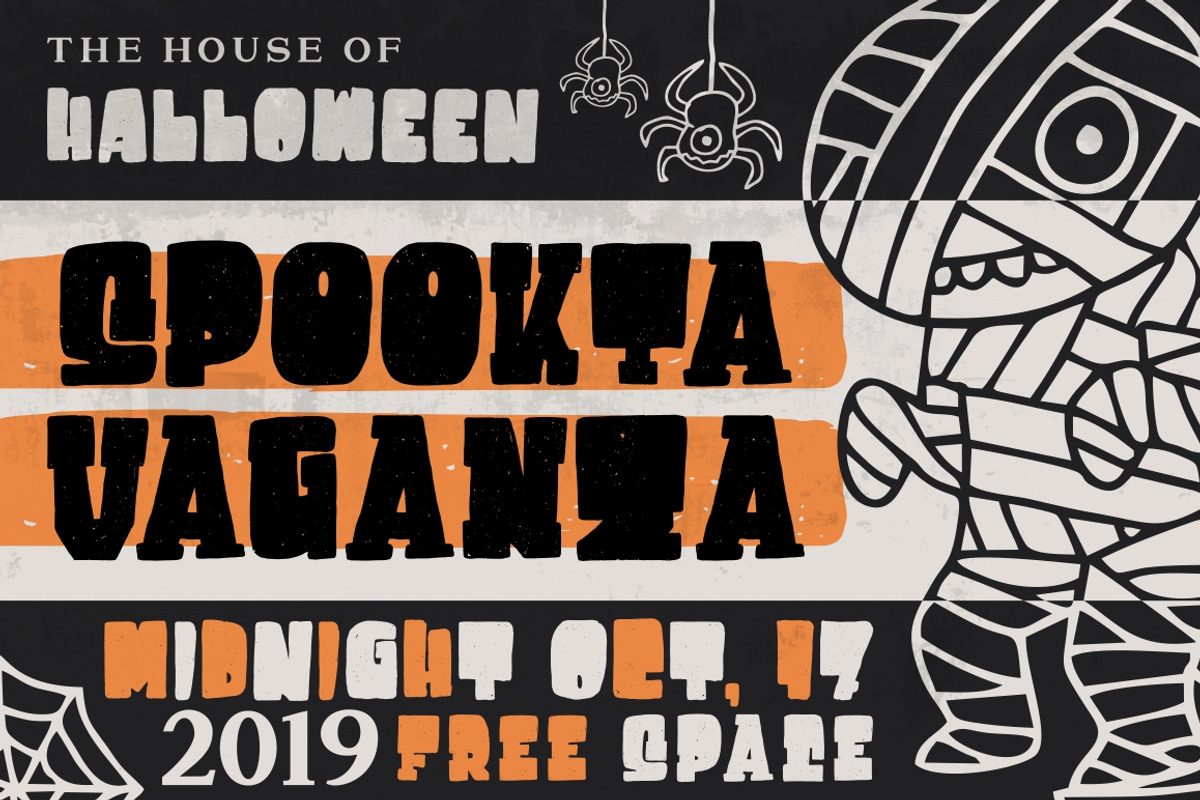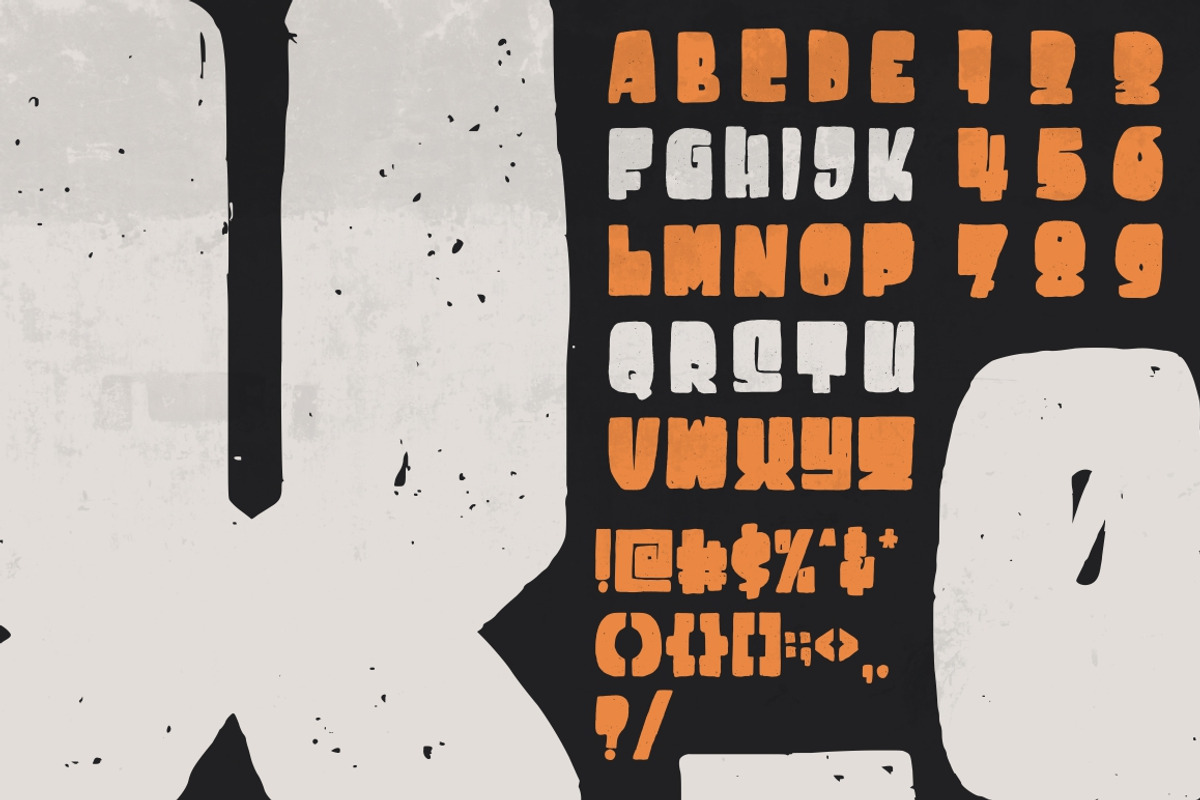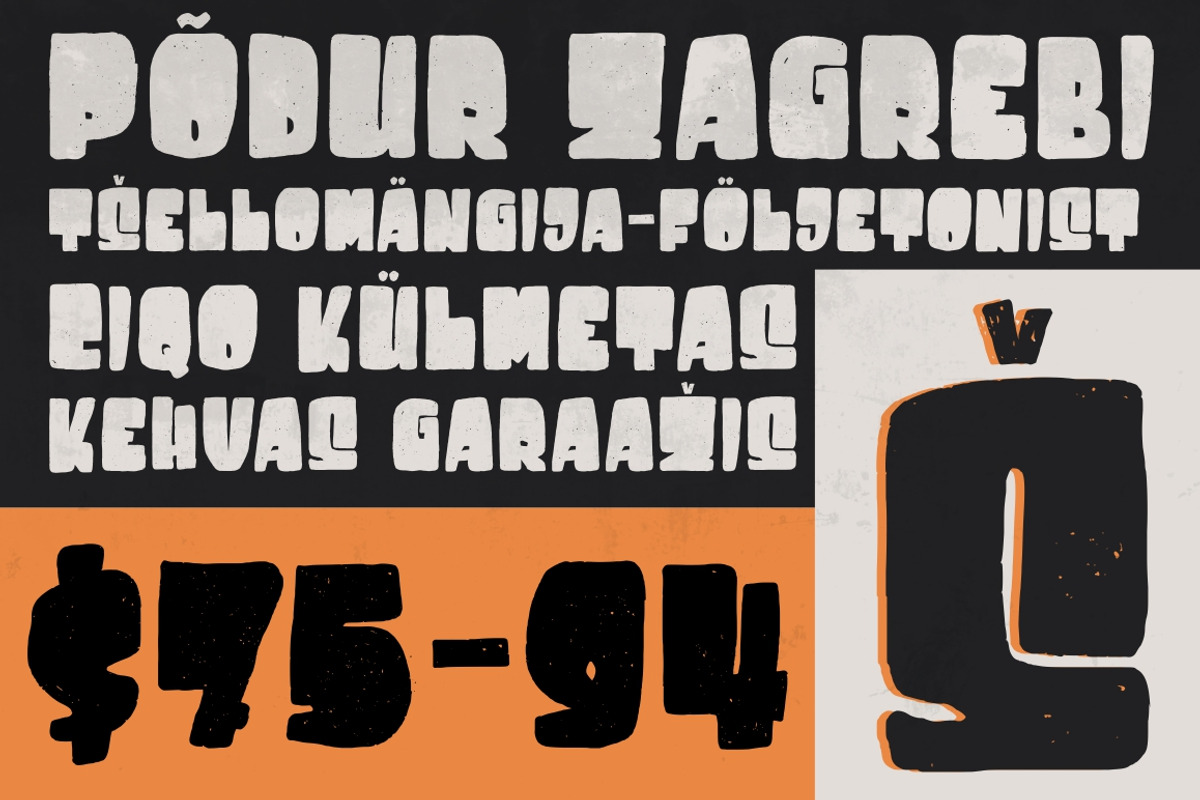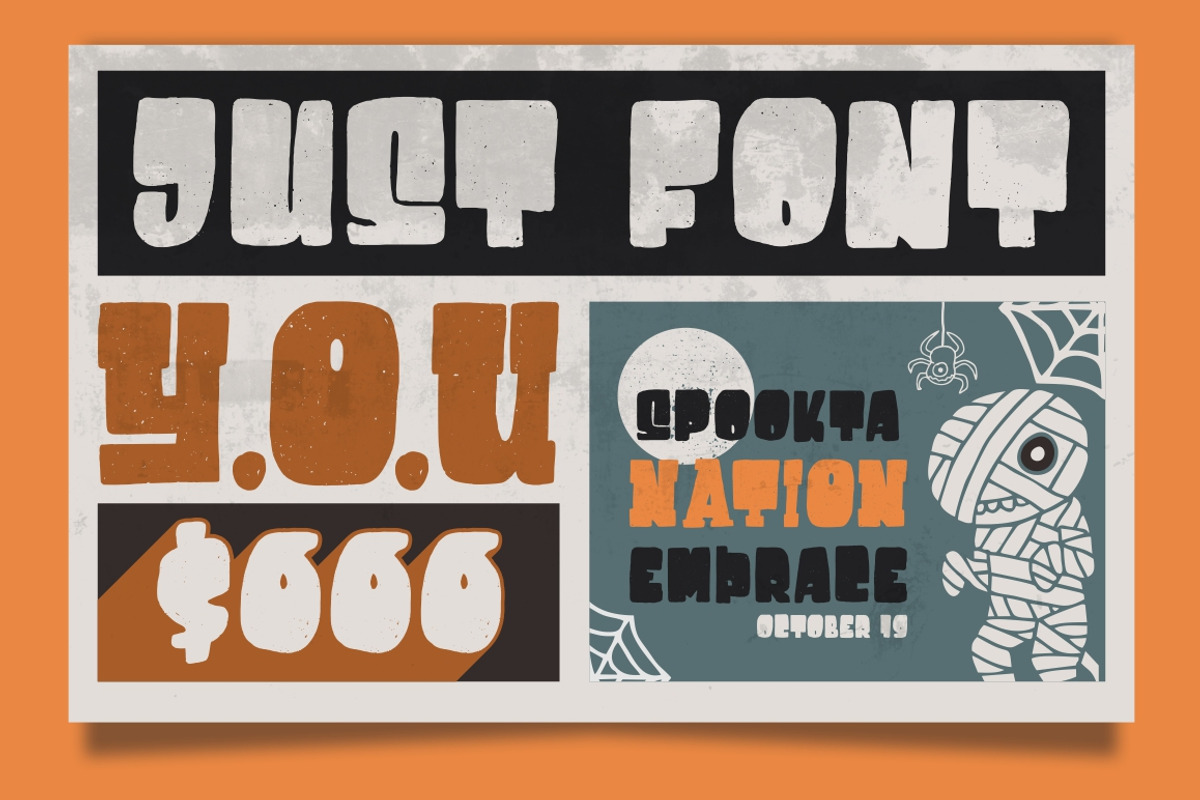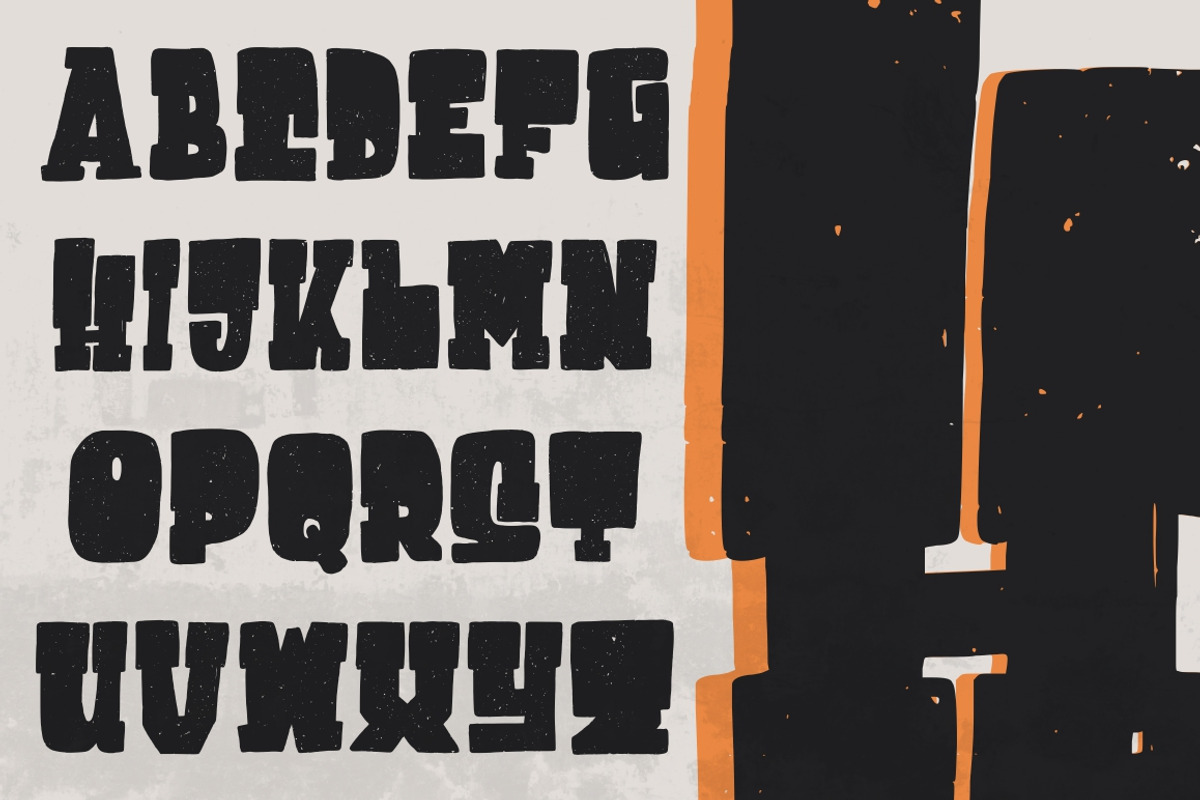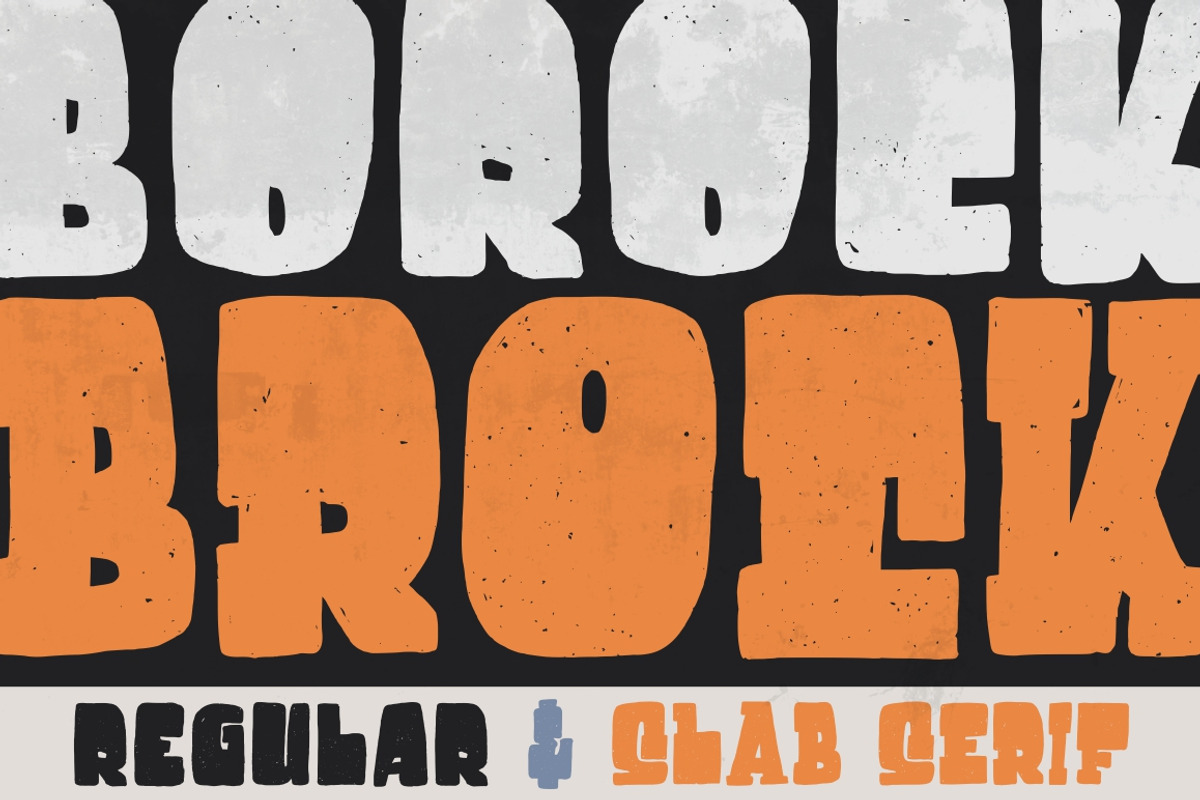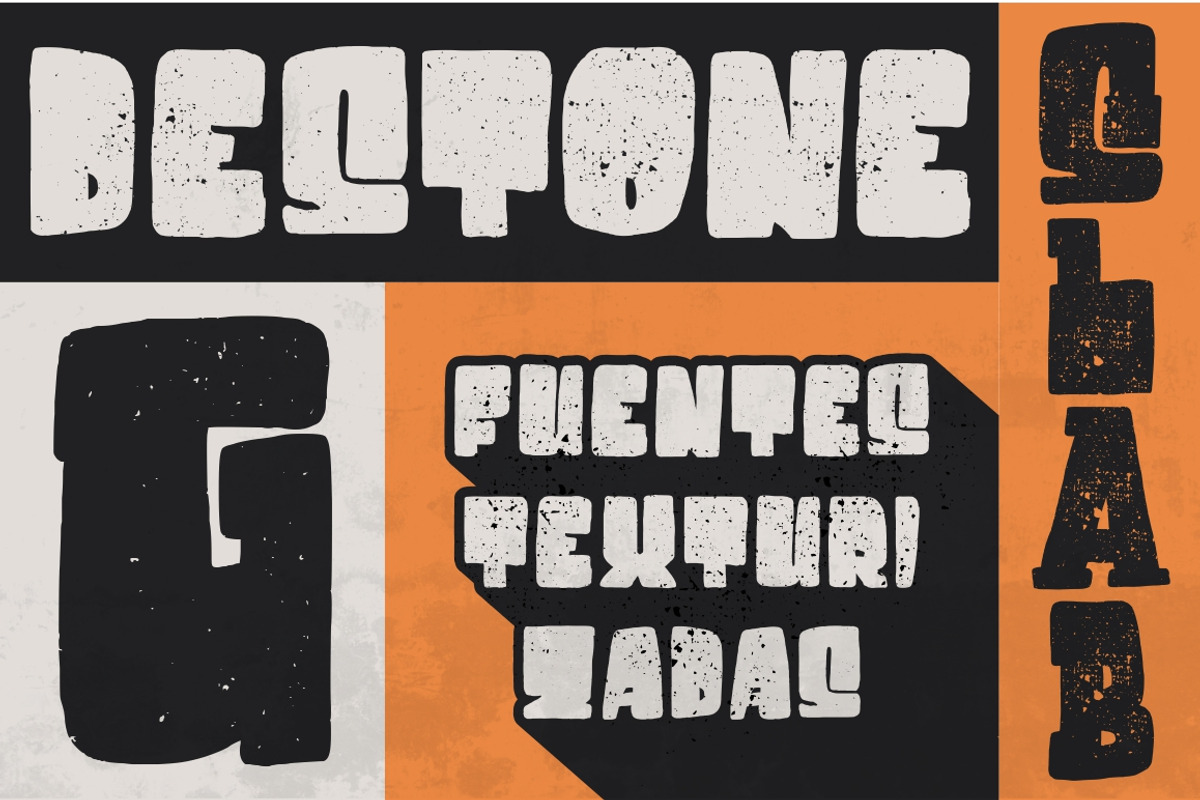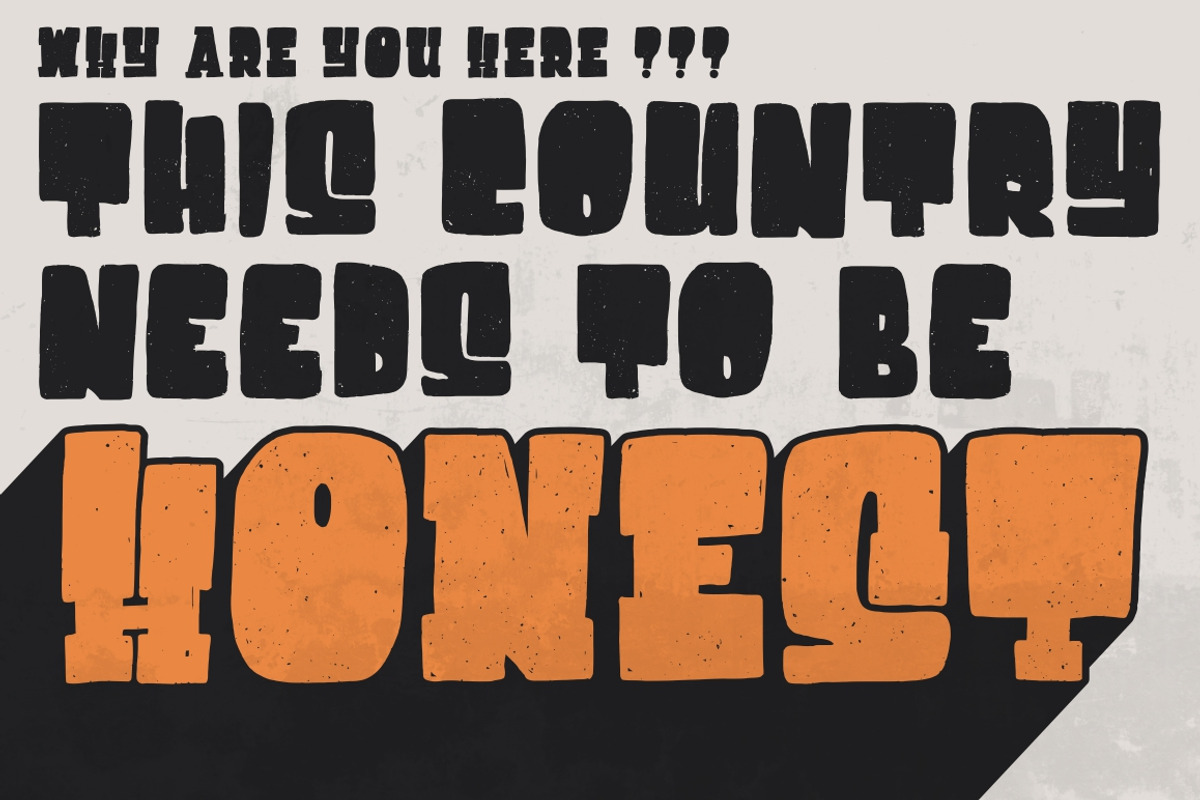
Destone - 2 Styled Font
Introducing Destone - 2 styles (Regular & Slab Serif)
Destone combines attractive curves with a fresh urban edge; delivering a stylish script which is guaranteed to add an eye-catching appeal to your logo designs, brand imagery, handwritten quotes, product packaging, merchandise & social media posts